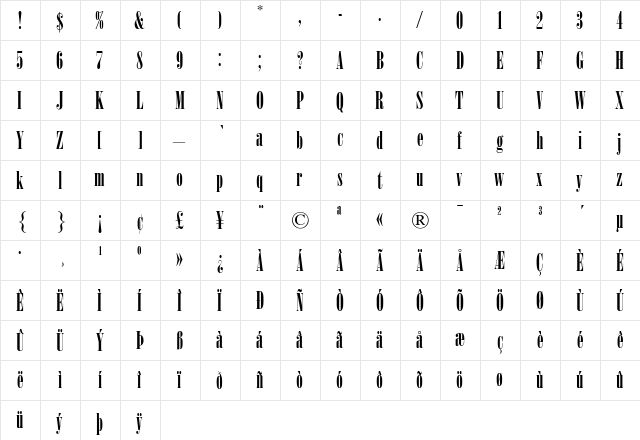
OnyxMT Roman
Design Context for OnyxMT Typeface
OnyxMT is a composed and adaptable typeface that performs quietly and consistently across a wide range of design contexts.